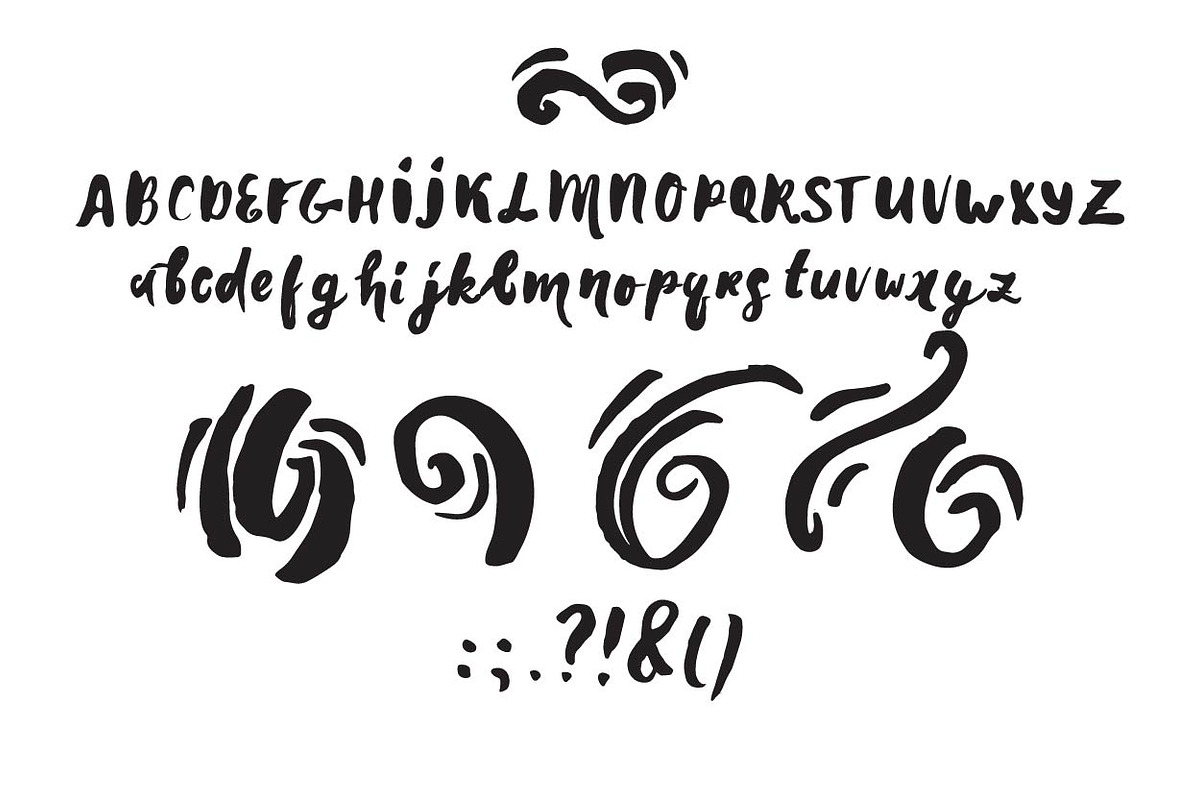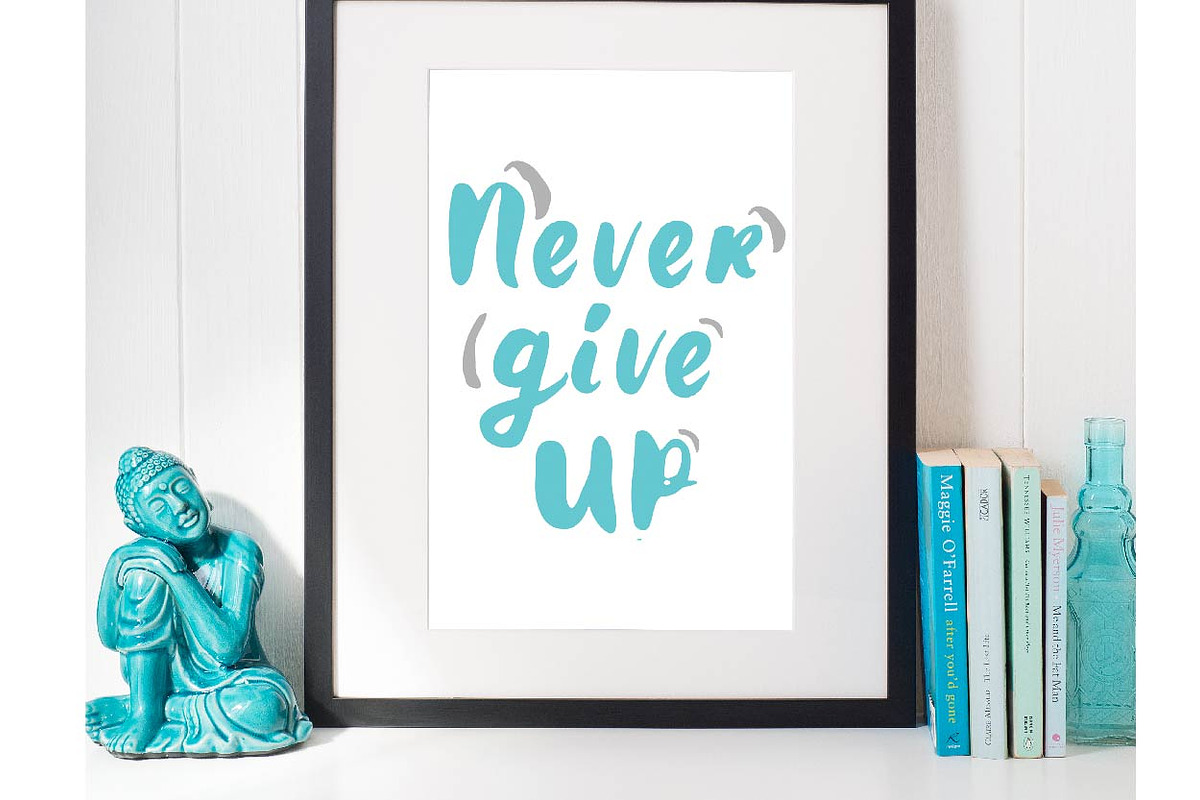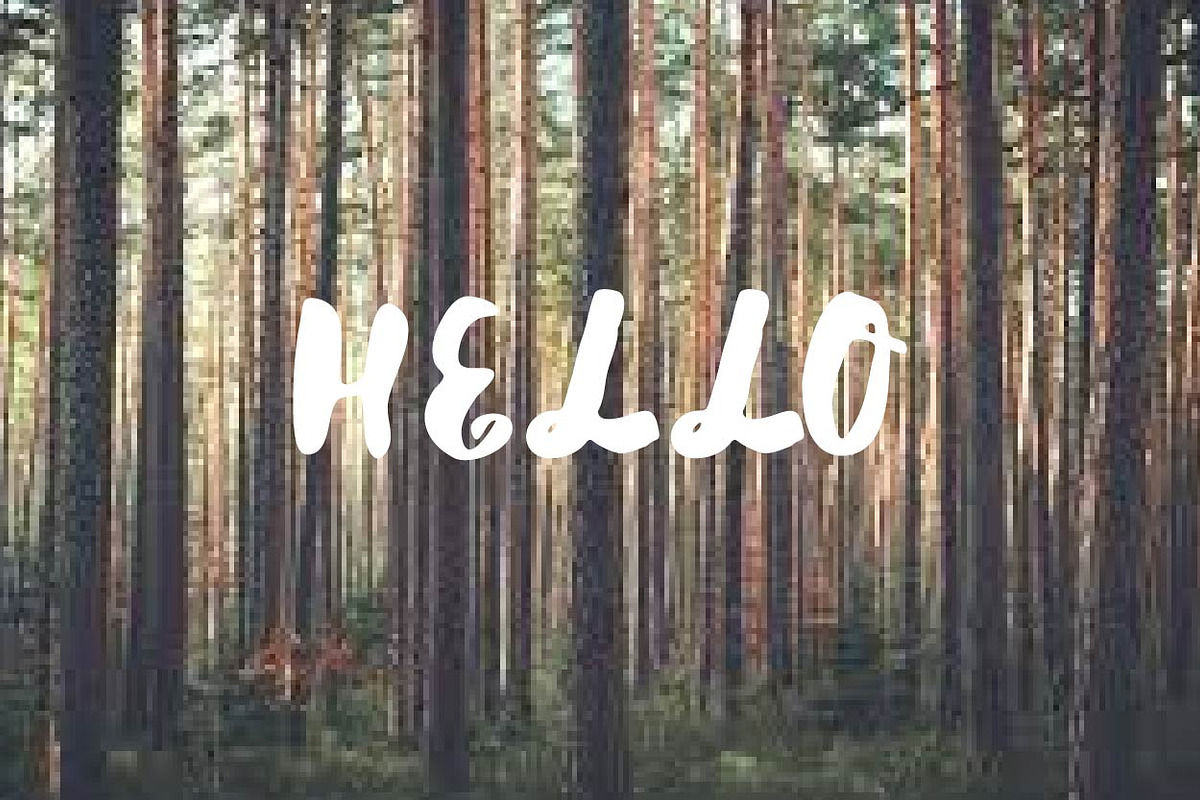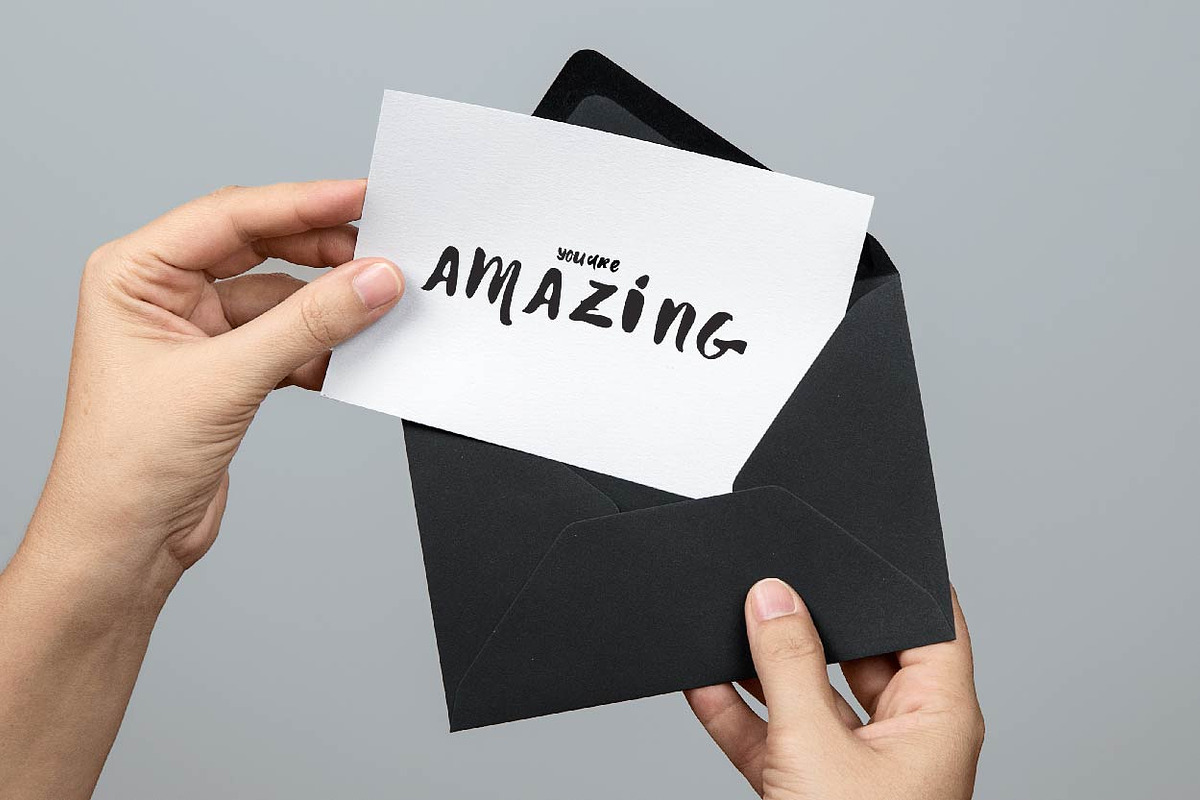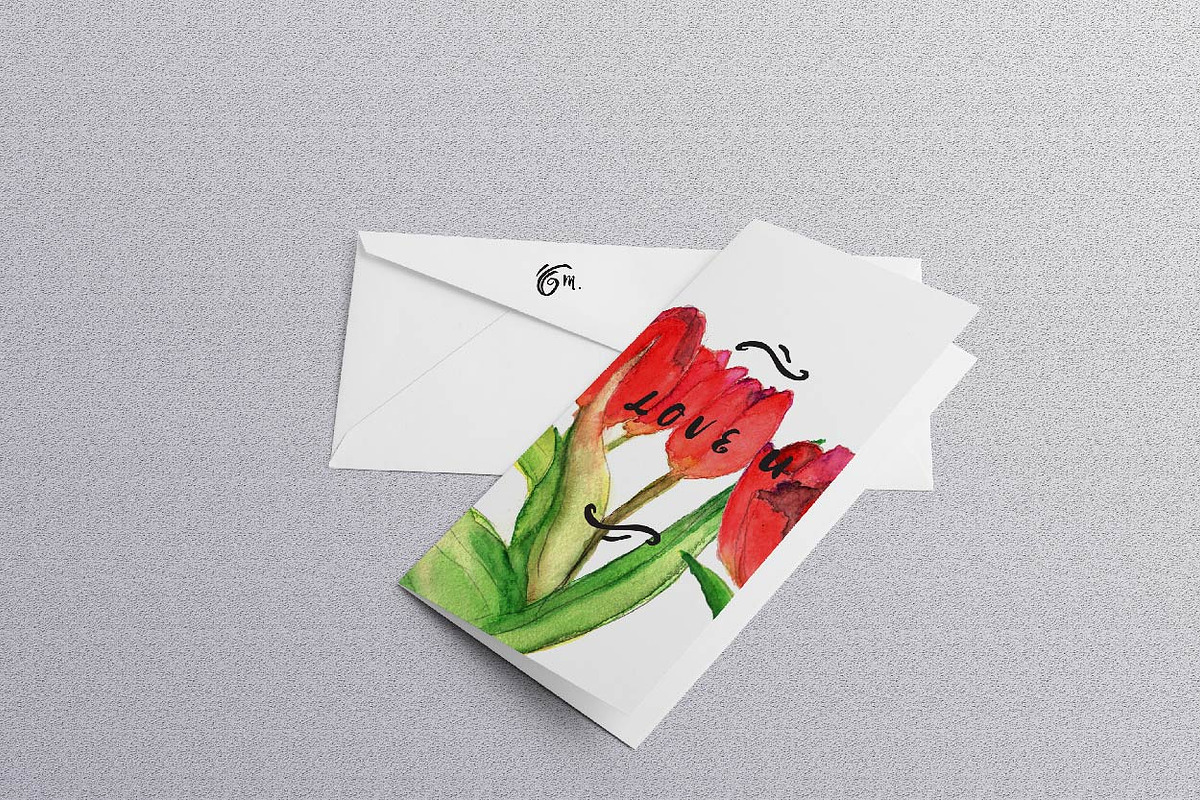
Hello font
Hello font by Veronika M is a font selected for branding, posters, packaging, typography.
Why Hello font is worth a look
Hello font by Veronika M fits naturally into Branding, posters, packaging, typography.